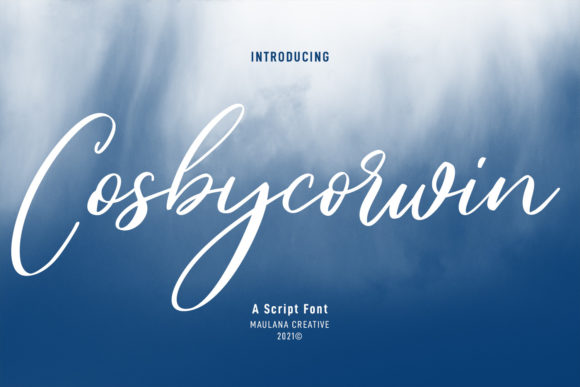
Cosbycorwin Script: A Modern Handwritten Masterpiece
Finding a handwritten font that feels both personal and professional is a rare discovery. Many script fonts lean too heavily into casual scrawl, while others become stiff and lose their organic charm. Cosbycorwin Script strikes a remarkable balance, offering a premium font experience that feels authentic, versatile, and ready for serious design work. It’s a typeface that doesn’t just sit on a page—it communicates personality, elegance, and a contemporary edge.
Visual Character and Style
At its core, Cosbycorwin Script is an exquisite script font with clear calligraphic roots, but it avoids feeling outdated or overly ornate. The letterforms exhibit a natural, flowing rhythm with beautiful, consistent stroke variation. You’ll notice the graceful connections between characters, the subtle swelling at terminals, and the thoughtful balance between thick and thin lines. This isn’t a font that mimics hurried penmanship; it’s a carefully crafted typeface that feels intentional and refined.
What sets it apart is its contemporary freshness. The spacing is modern, the x-height is generous enough for legibility at smaller sizes, and the overall texture is clean without losing its handmade soul. It has a confident, slightly upscale personality—think of a stylish boutique, a premium artisan product, or a sophisticated personal brand. The font feels alive, inviting, and inherently trustworthy.
Where This Font Truly Shines
The strength of Cosbycorwin Script lies in its adaptability. It’s a creative font designed for projects where you need to inject warmth, authenticity, and a touch of luxury. Here’s where it excels:
- Brand Identity and Logo Design: For businesses that want to convey approachability with a premium feel—think boutique hotels, specialty coffee roasters, wedding planners, or artisanal food brands—this font makes a powerful statement. It works beautifully in logos, wordmarks, and brand collateral.
- Packaging Design: On labels for cosmetics, gourmet foods, or craft beverages, Cosbycorwin Script adds an immediate sense of craftsmanship and care. It helps products stand out on shelves by signaling quality and attention to detail.
- Editorial and Publishing: Use it for magazine mastheads, chapter titles in books, or featured quotes in blogs. It adds a personal, engaging touch to editorial design without sacrificing readability in pull-out sections.
- Digital and Social Media: In a world of cold, geometric sans-serifs, this handwritten font helps your content feel more human. It’s perfect for Instagram stories, Pinterest graphics, website headers, and email newsletter banners where you want to connect emotionally with your audience.
- Wedding and Event Stationery: The elegant yet approachable style is ideal for invitations, save-the-dates, programs, and thank-you cards. It sets a romantic and sophisticated tone.
- Personal Projects and Crafting: From custom signage to personalized gifts, its clarity makes it a favorite among hobbyists and crafters who want a professional-looking script that’s easy to work with.
The Practical Impact on Your Projects
Choosing a font like Cosbycorwin Script isn’t just an aesthetic decision—it influences how your audience perceives and interacts with your work. A well-chosen display font can guide the viewer’s eye, establish a visual hierarchy, and reinforce your message without a single extra word.
When used as a headline or accent font, it naturally draws attention. Pair it with a clean, neutral sans serif font for body text, and you create a dynamic contrast that’s both beautiful and functional. This pairing helps maintain readability while giving your design depth and character. The font’s inherent consistency—despite its handwritten nature—also promotes brand recognition. Using it across your website, social media, and print materials builds a cohesive brand identity that feels unified and professional.
Making the Right Choice for Your Work
Before integrating any premium font into your toolkit, it’s wise to evaluate its fit. Start by considering your project’s voice. Does it call for warmth, elegance, and a personal touch? Cosbycorwin Script is ideal for projects aiming for a premium, artisanal, or boutique feel. It’s less suited for highly technical, corporate, or minimalist contexts where a stark serif font or geometric sans serif font might be more appropriate.
Always test font pairings. Try setting your primary headline in Cosbycorwin Script and your subheadings or body copy in a complementary typeface. Observe the contrast in weight, style, and x-height. A strong pairing should feel balanced, not competing. Review the font’s included styles—does it have alternates, ligatures, or multiple weights? These features can add valuable flexibility to your web design or print layout.
Readability is paramount. While Cosbycorwin Script is designed for clarity, avoid setting long paragraphs in it. It’s optimized for display use: titles, logos, short phrases, and accents. For body text, always opt for a highly legible serif or sans serif font. Finally, ensure you have the correct commercial font license for your intended use, whether it’s for a client’s logo, product packaging, or a commercial website. Proper licensing protects both you and the font creator.
In the landscape of modern typography, Cosbycorwin Script stands out as a versatile and evocative tool. It’s more than just a set of letters; it’s a design asset capable of elevating your work, telling a richer story, and creating a lasting impression. By understanding its strengths and applying it thoughtfully, you can bring a new level of sophistication and connection to your creative projects.